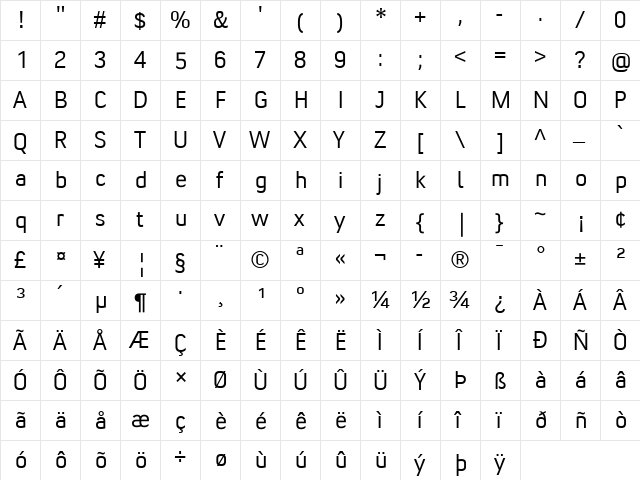
MC360 XBMC UI
Design Context for MC360 Typeface
MC360 offers clean, dependable letterforms without strong stylistic allegiance, making it a practical choice for designers who need flexibility.
Pro Tip: Use MC360 in both headline and body roles to test its range before committing to a single application.